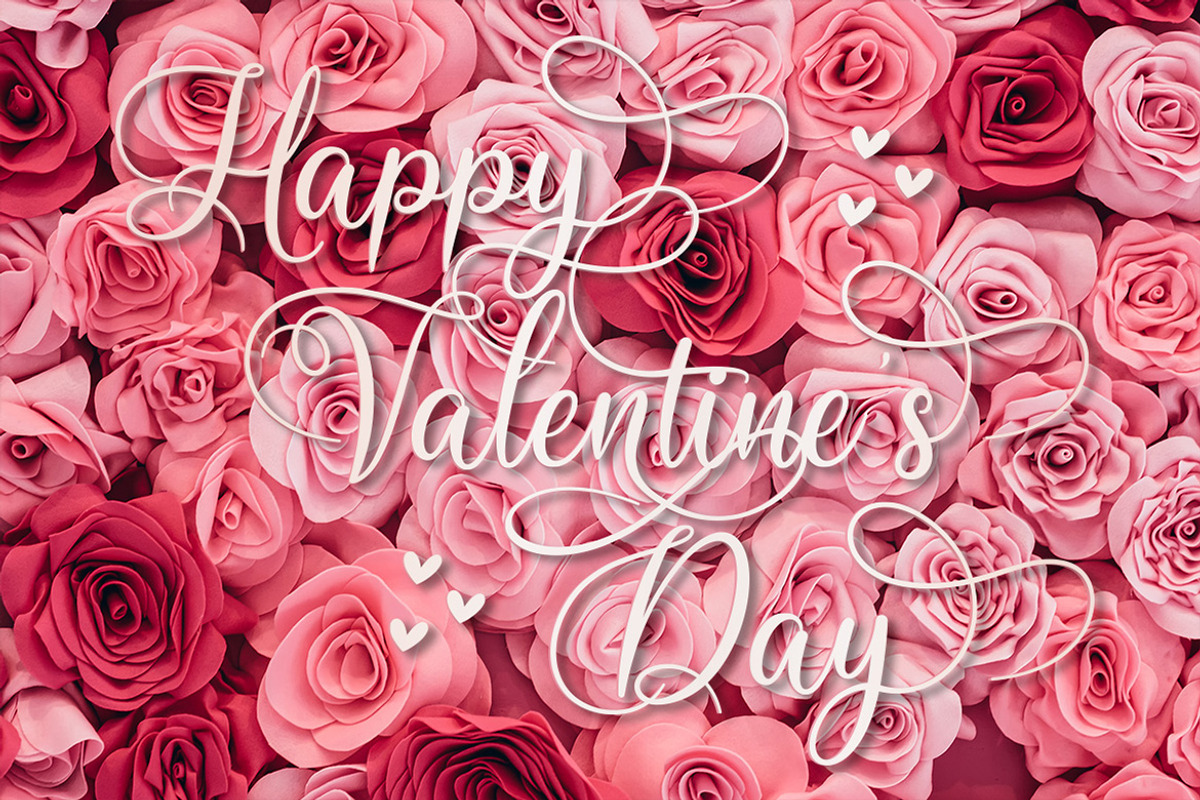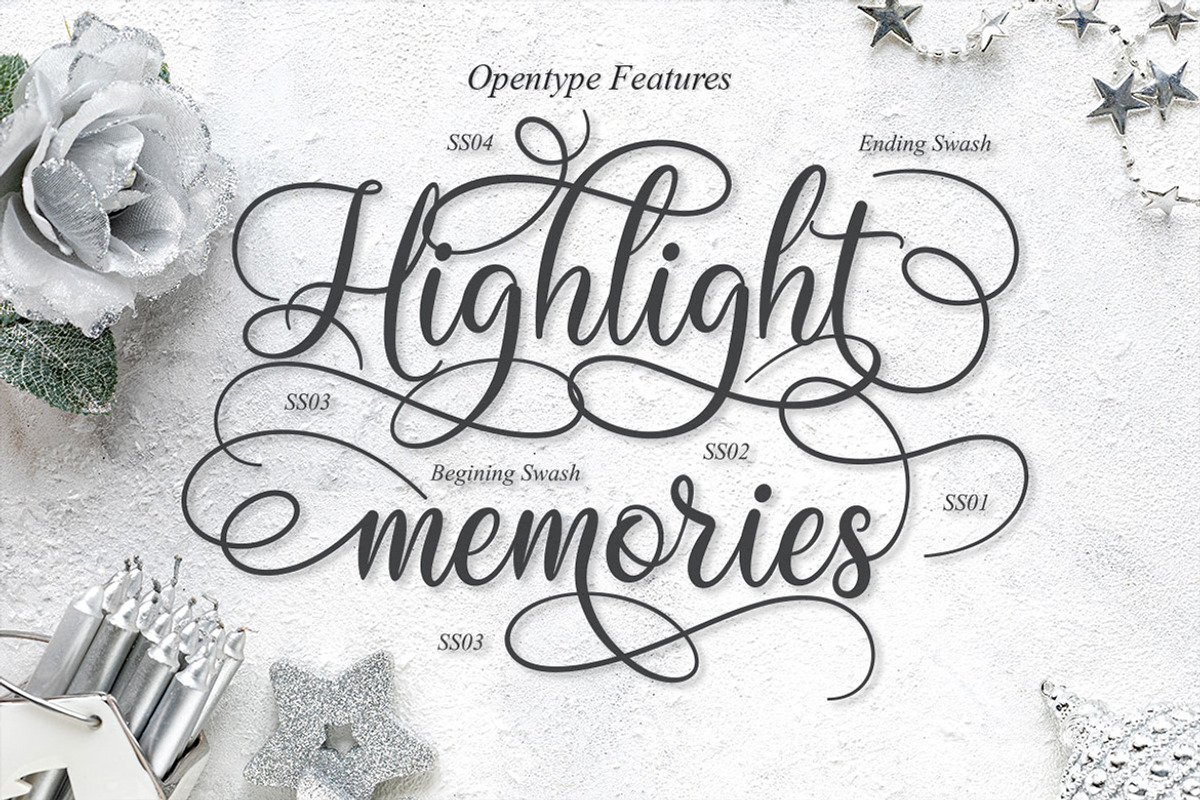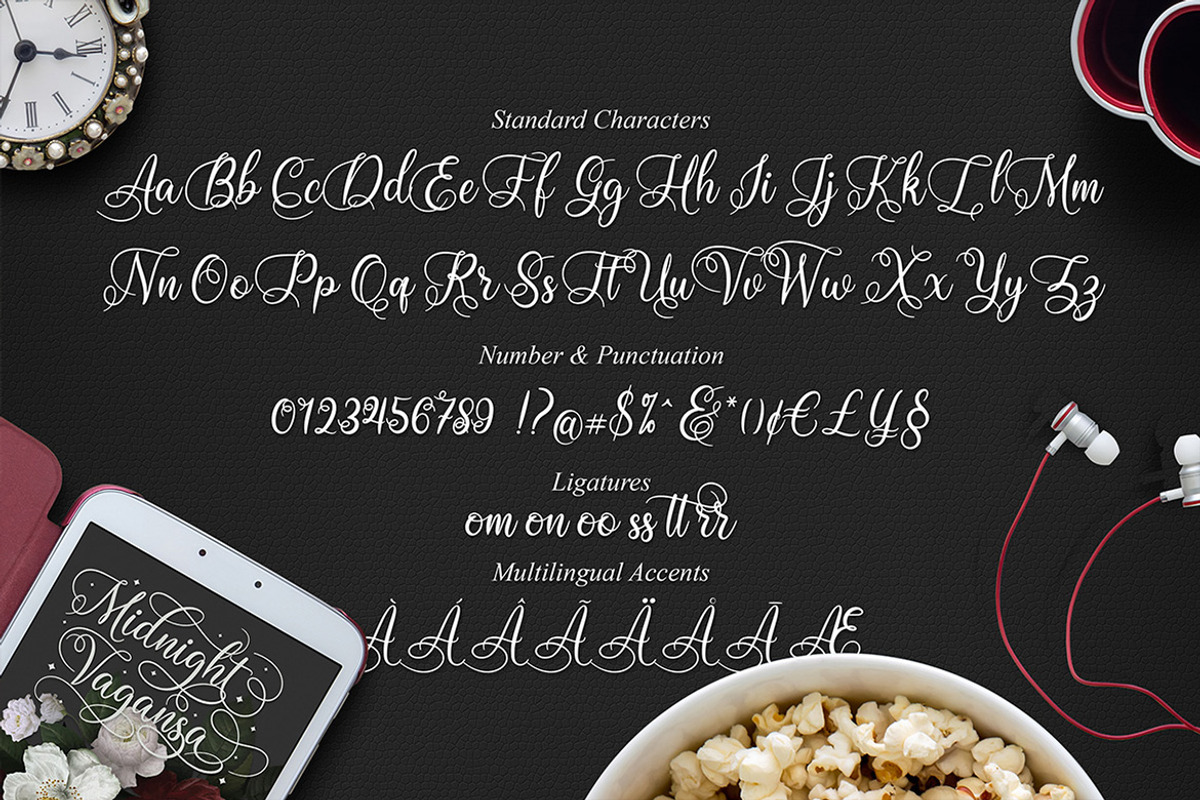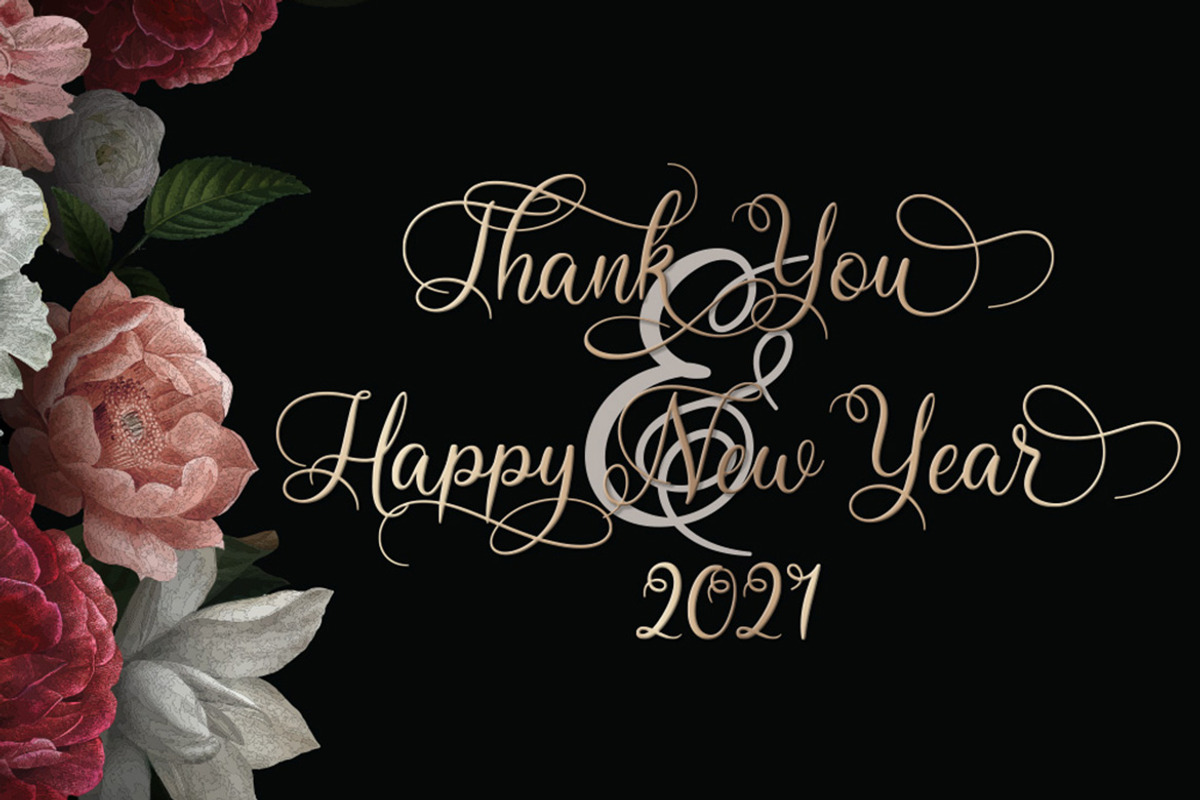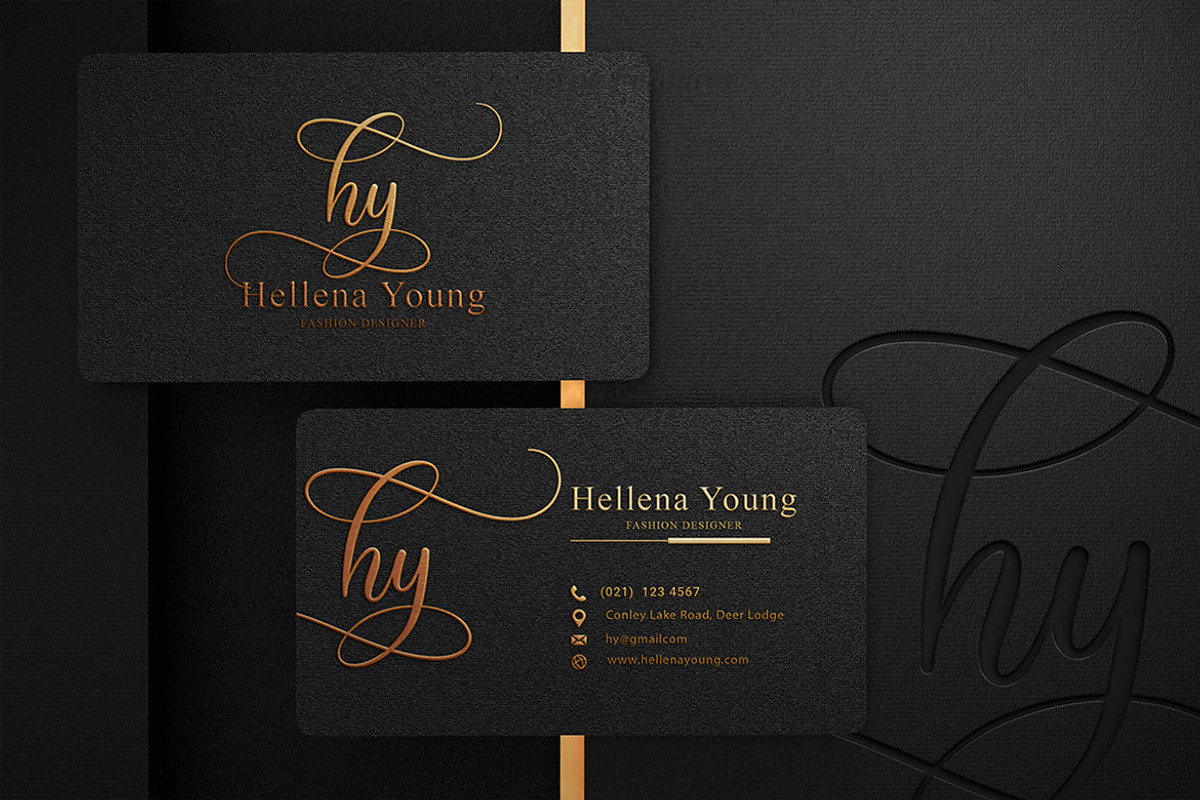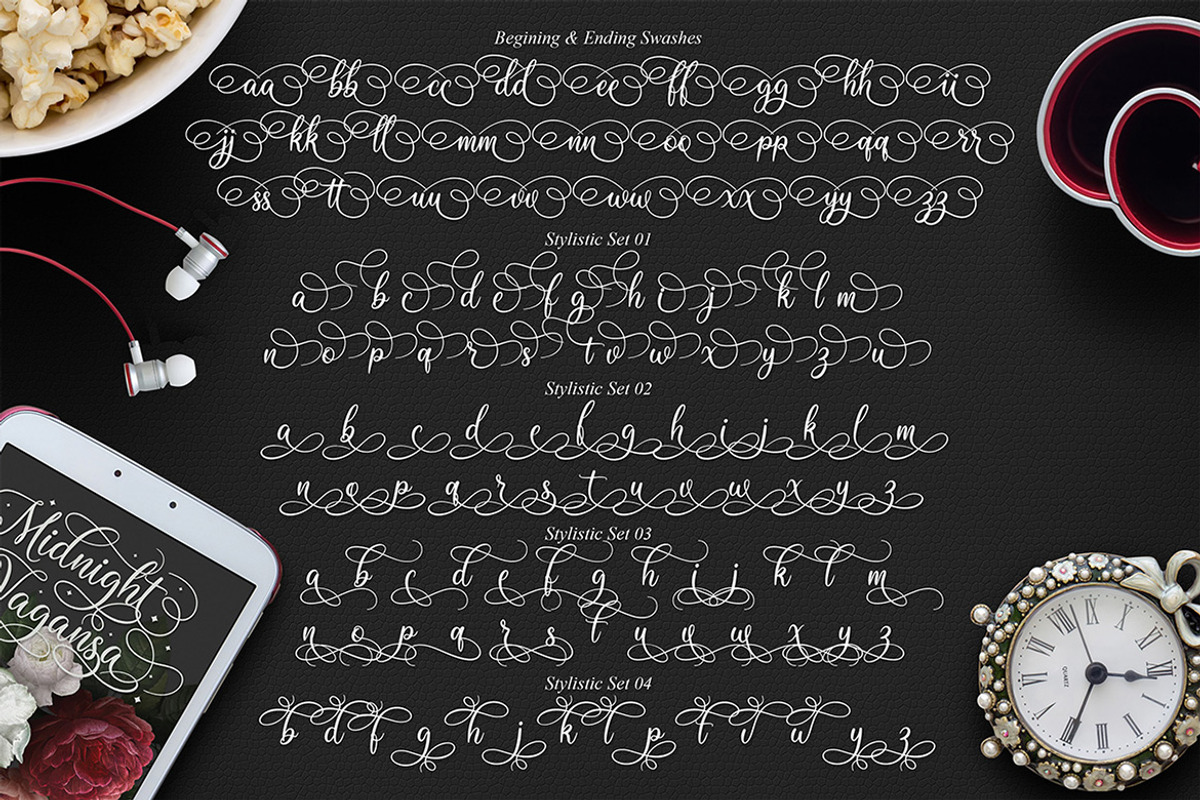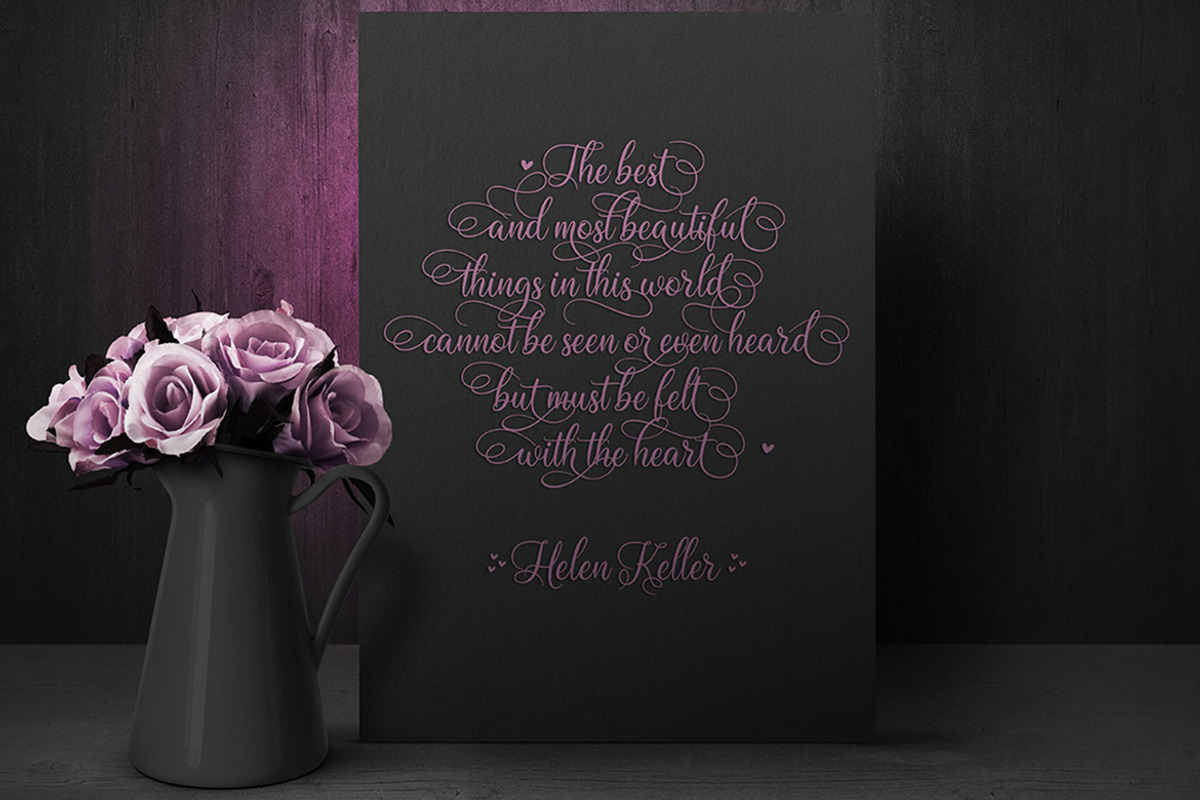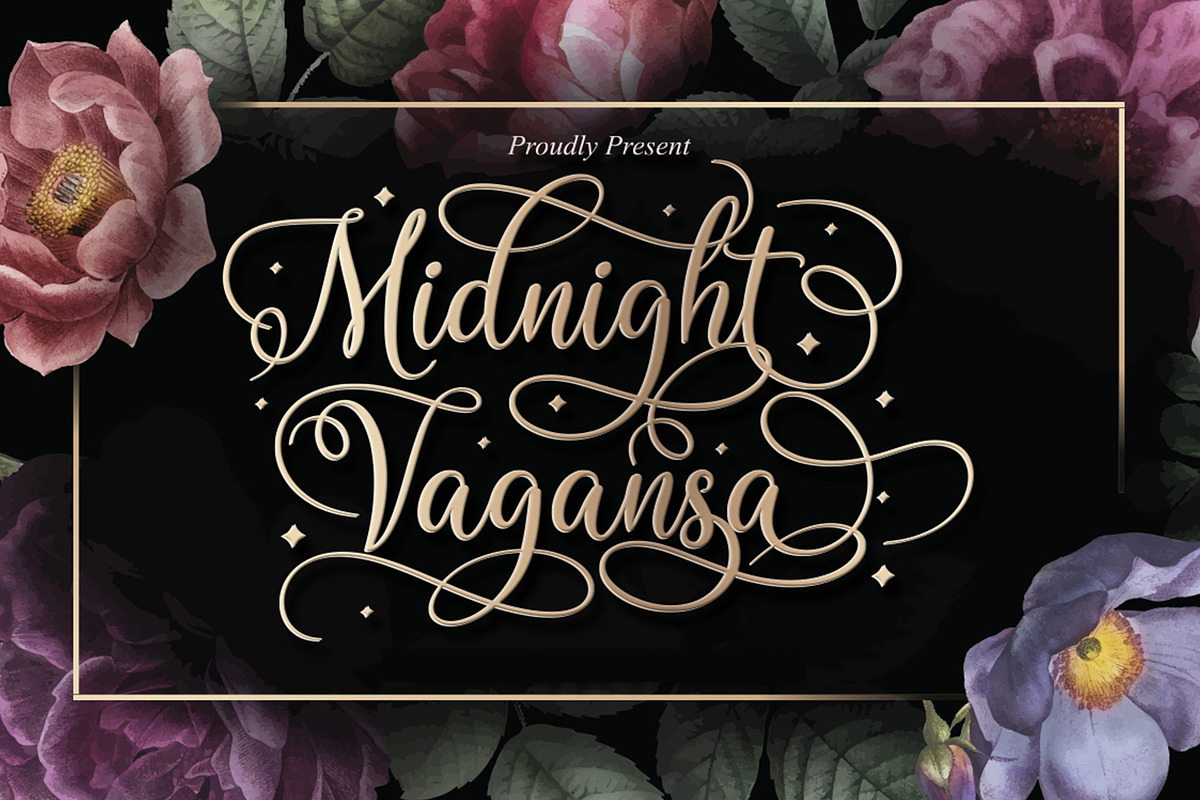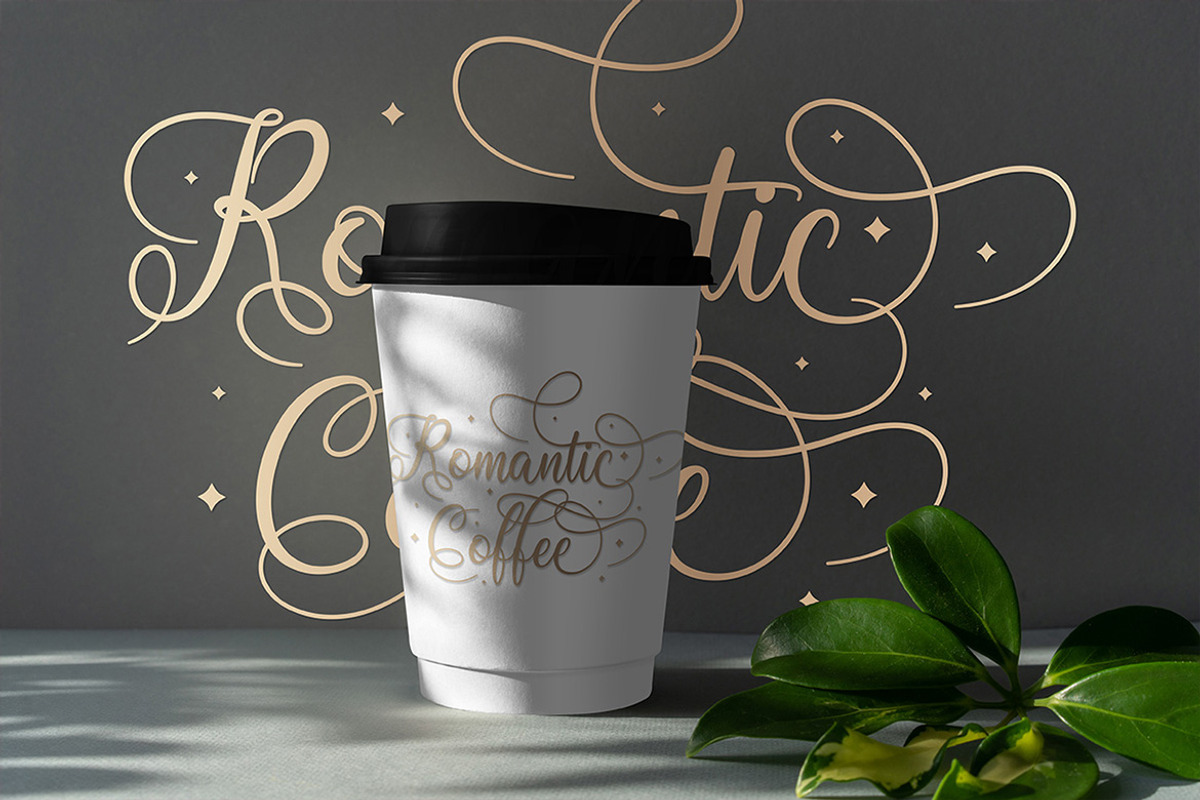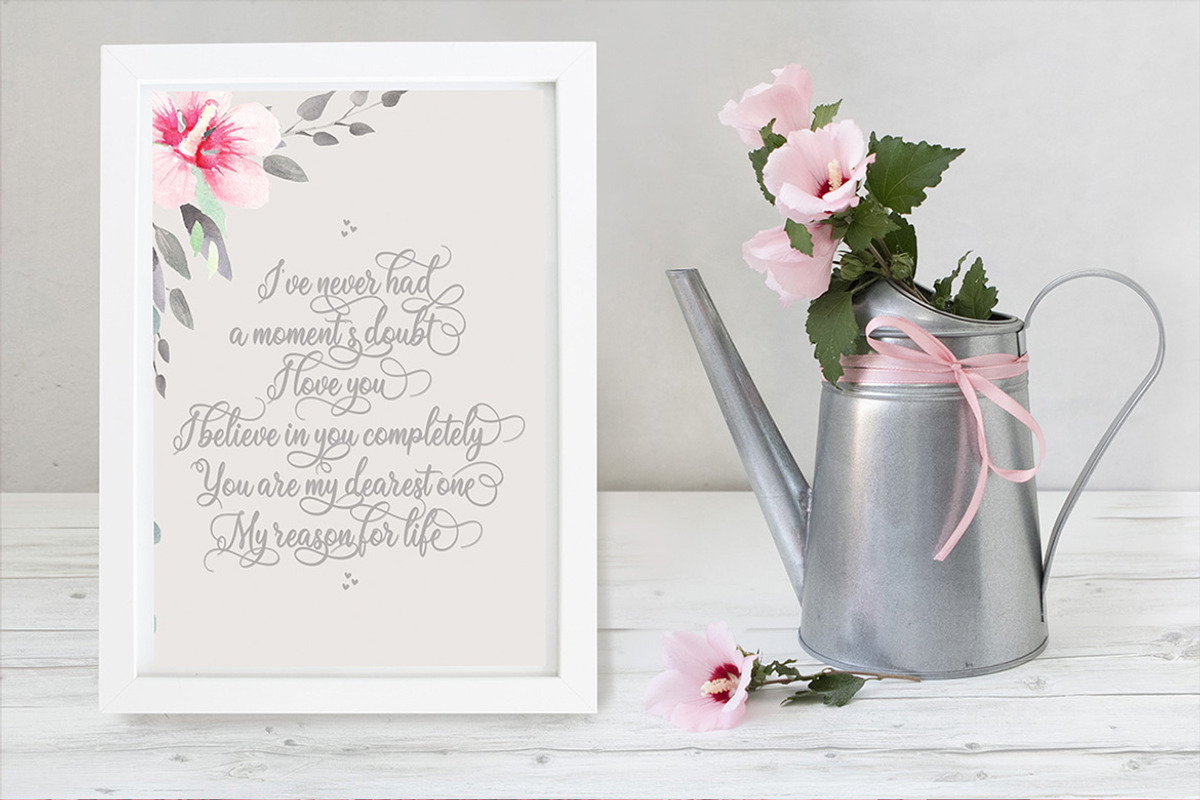
Midnight Vagansa | Beauty Caligraphy
Midnight Vagansa is a beautiful modern calligraphy with many alternative styles, this font looks natural, elegant and perfect for any extraordinary project.Midnight Vagansa is suitable for various products such as invitations, product packaging, quotes, product design, crafter, labels, photography, watermarks, logos & branding and very suitable for design Valentine day, mother day, wedding, spring, christmas, etc.